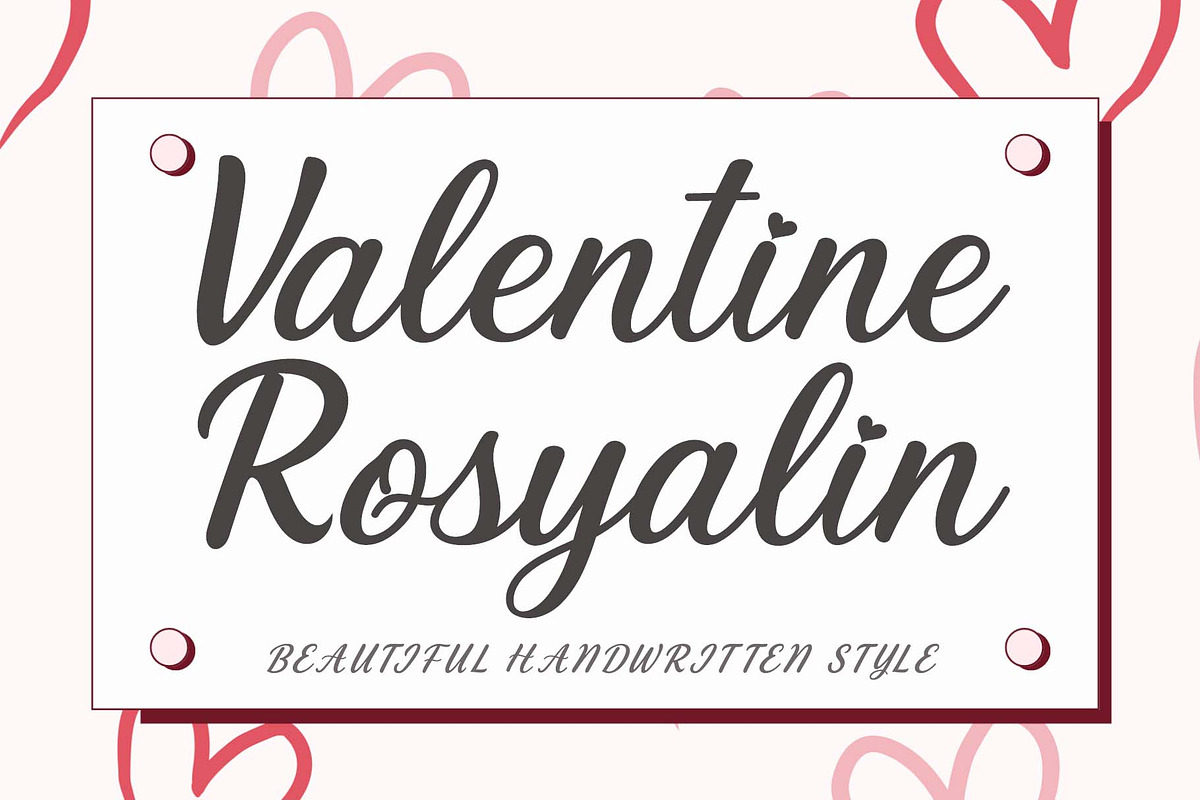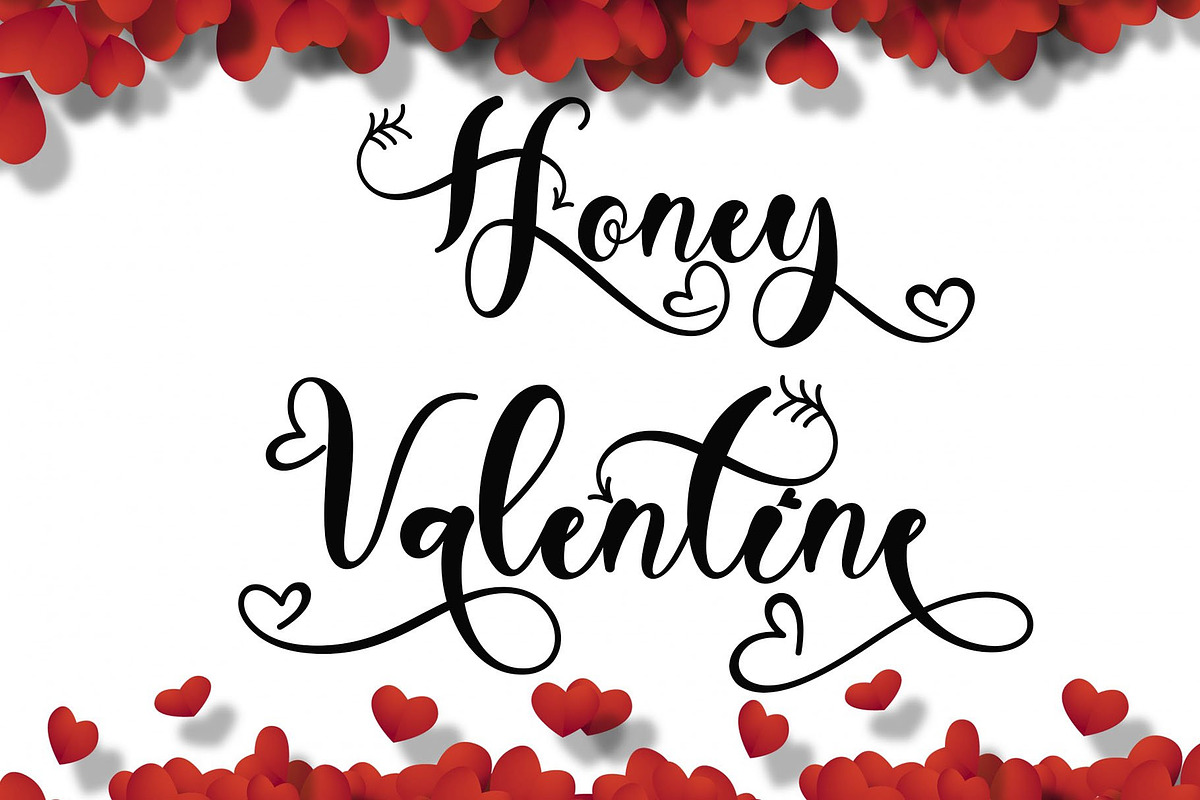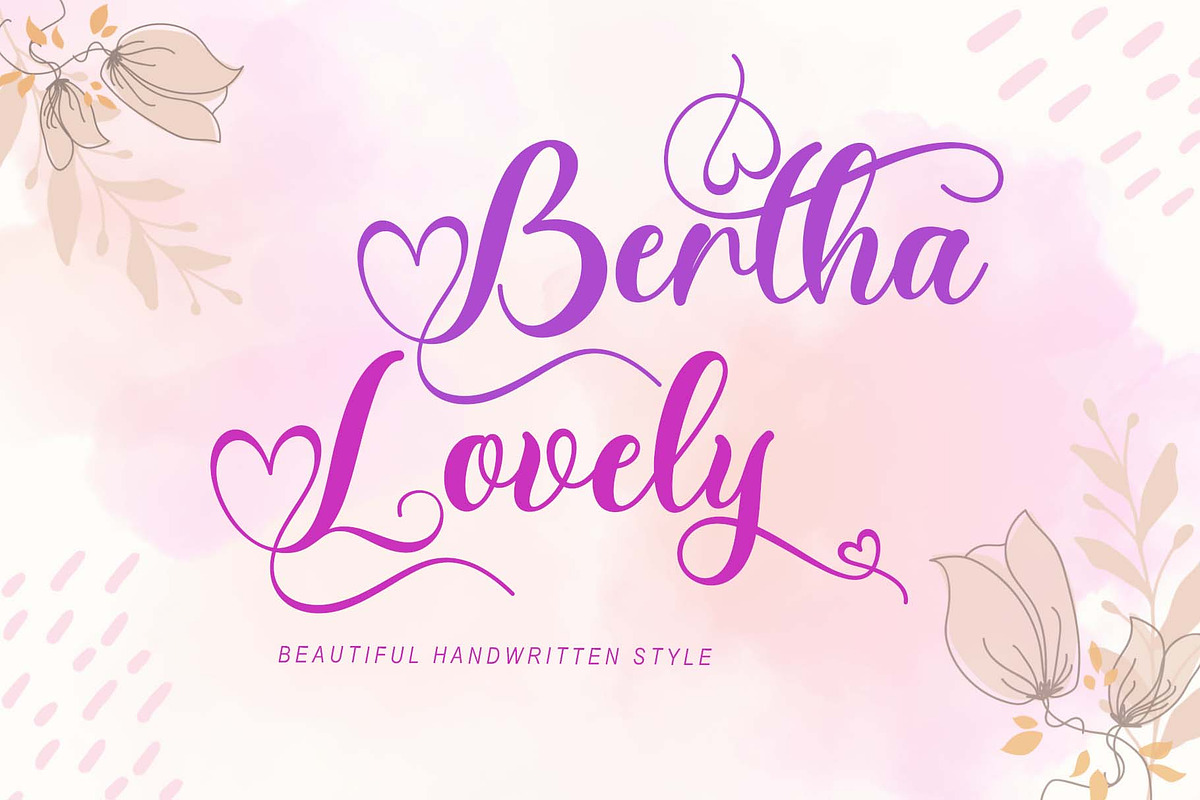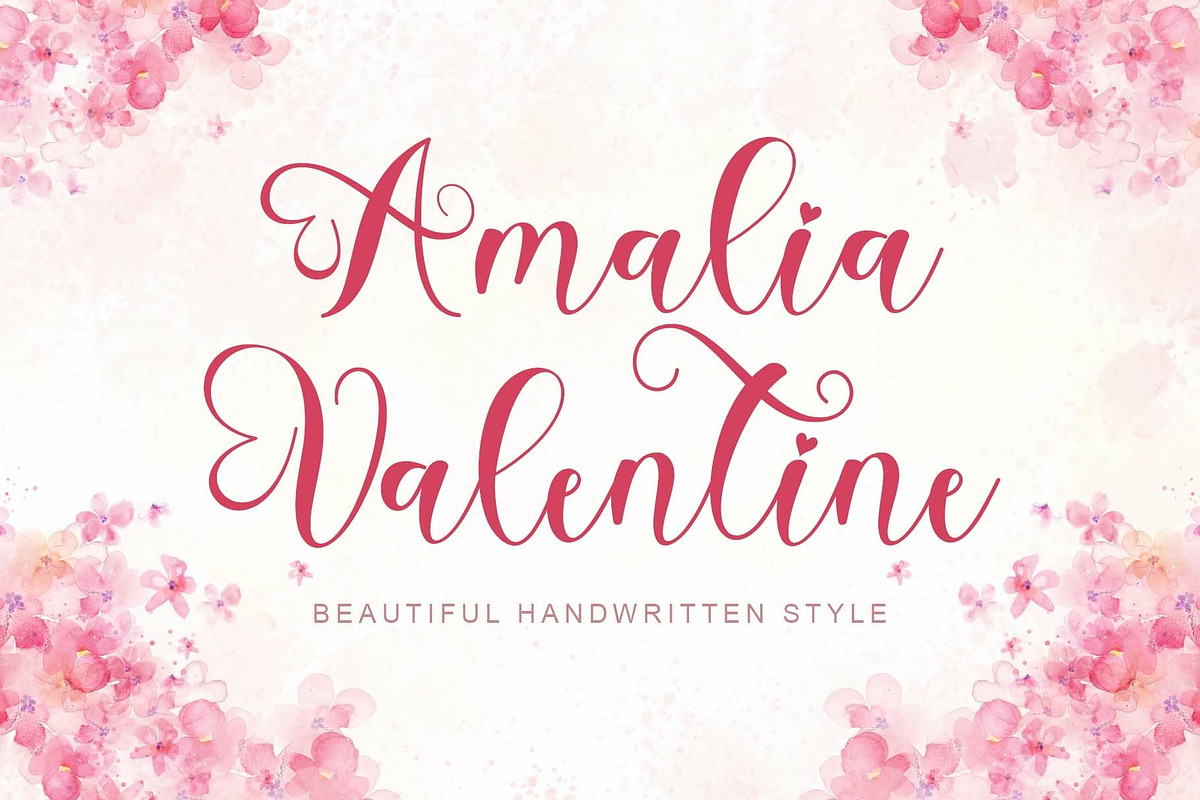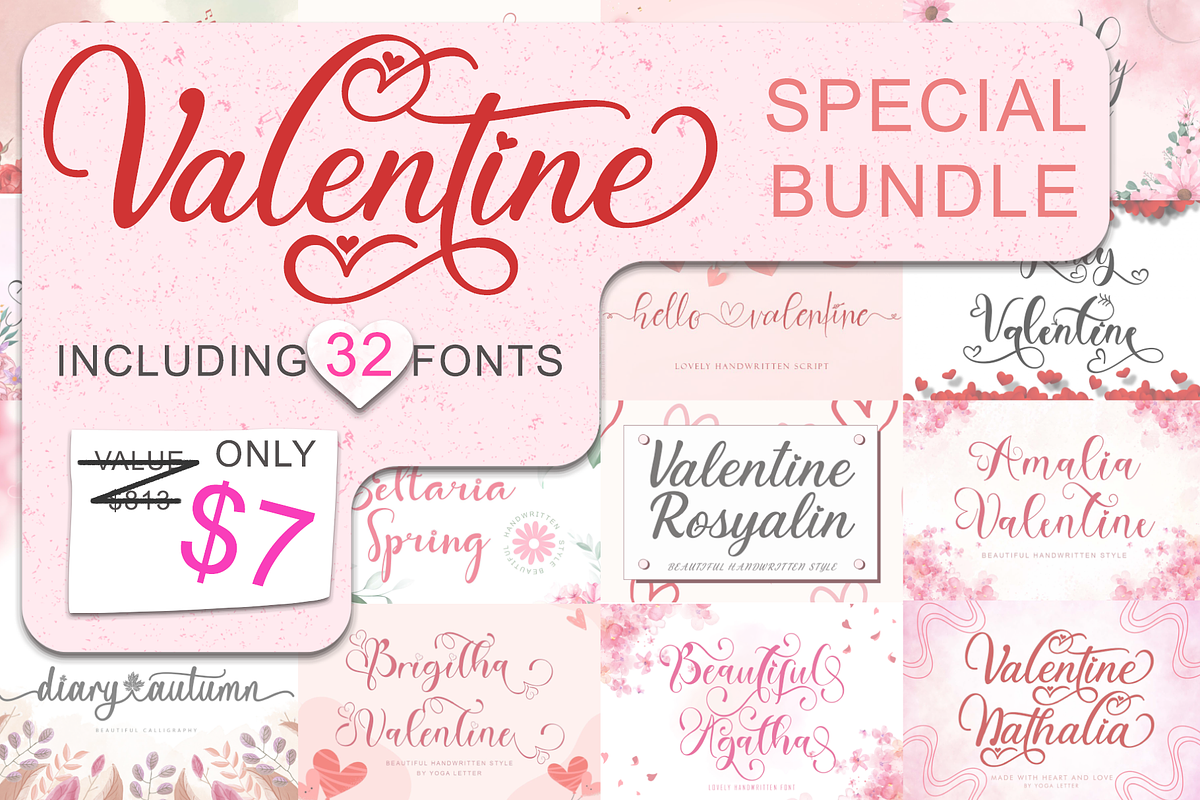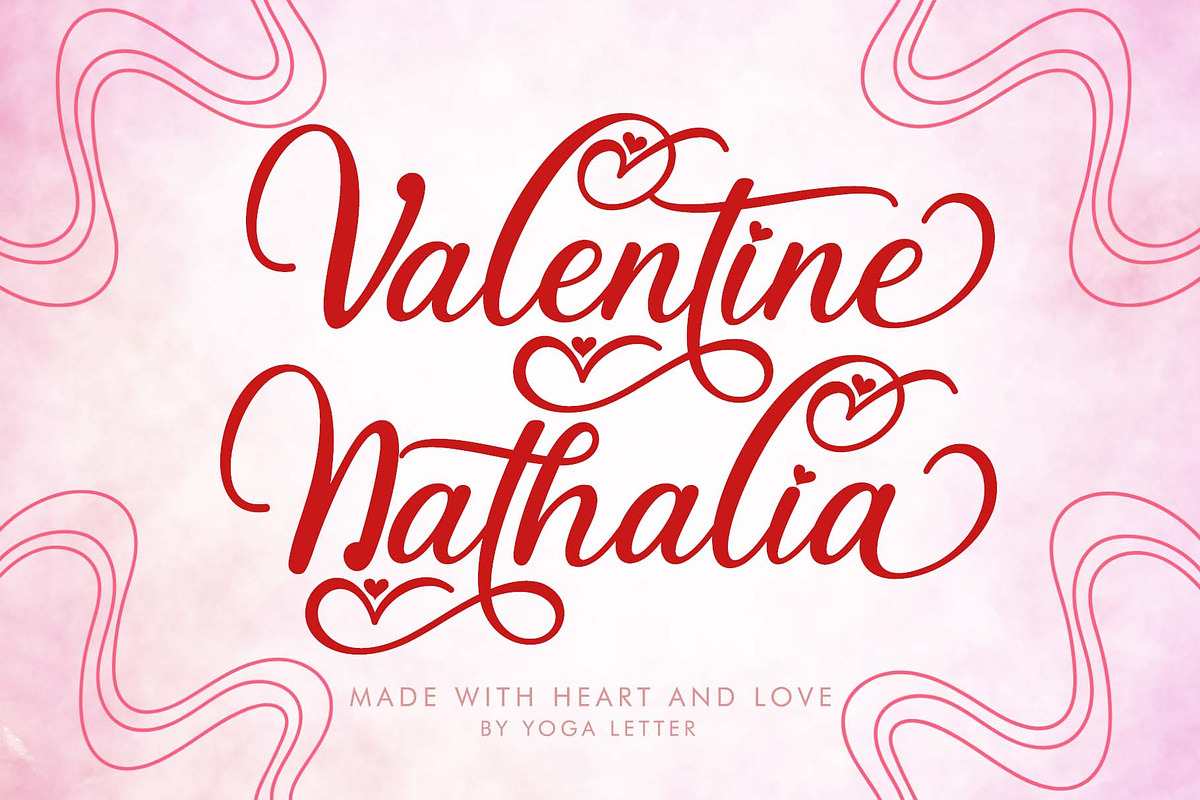
Valentine Special Bundle
This bundle contains 32 beautiful fonts :
- Valentine Rosyalin
- Alestha Butterfly
- Valentine Nathalia
- Hello Valentine
- Sweet Amora
- Brigitha Valentine
- Amalia Valentine
- Beautiful Agatha
- Beautiful Easter
- Honey Valentine
- Diary Autumn
- Spring Heart
- Romantic Christmas Monogram
- Christmas Balethy
- Samantha Christmas
- Mother Spring
- Mother Time
- Bettaria Spring
- Welisha
- Janetha Spring
- Neirra Spring
- Dorothy Spring
- Adelia Spring
- Bethy Valentine
- Bethany Love
- Charlotte Melody
- Angelia Valentine
- Valentine Blackletter
- Curly Valentine
- Antikan Rayo
- Bertha Lovely
- Amalestha